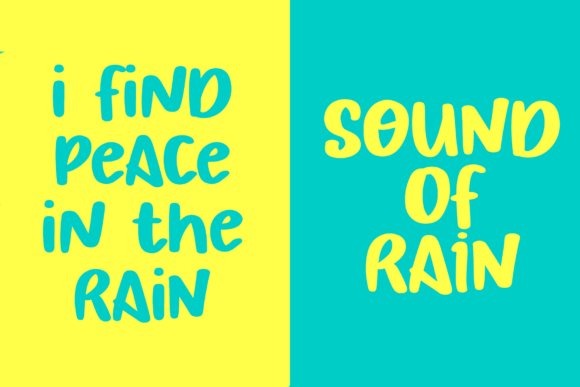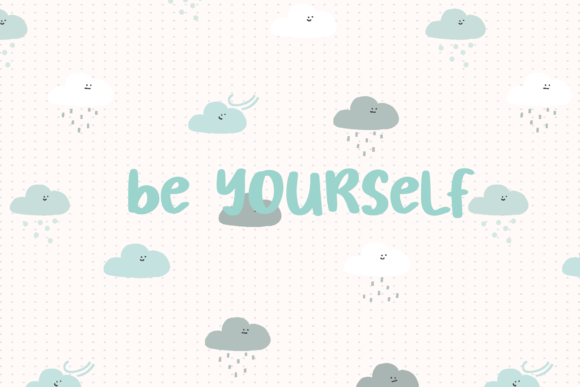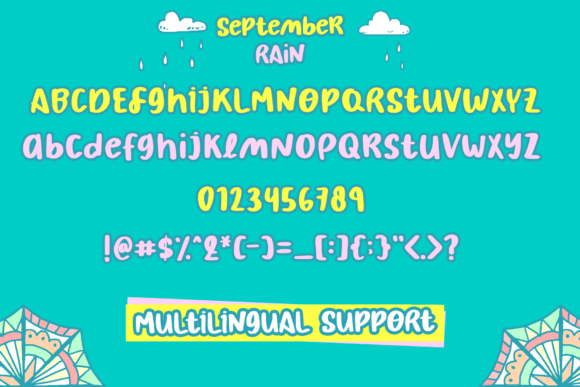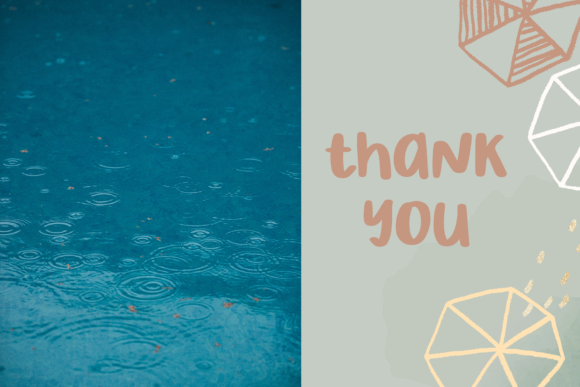
September Rain Font
About September Rain Font
“September Rain” is a whimsical and playful font designed to bring a touch of charm to your seasonal projects, making it perfect for greeting cards, posters, and various crafty endeavors. With this font, the only limit is your imagination, allowing it to bloom and cascade like the gentle rain of September.
This playful font is an ideal choice for crafting warm and inviting seasonal greetings on cards. Its whimsical nature adds a delightful touch, making it well-suited for expressing the joyful and creative spirit of the fall season. Whether you’re sending heartfelt messages or creating invitations, “September Rain” infuses your typography with a sense of playfulness.
In poster design, the font’s playful characteristics make it stand out, capturing attention and evoking a cheerful atmosphere. Whether you’re promoting autumn events, sales, or any creative initiative during the vibrant month of September, “September Rain” lends a whimsical touch that resonates with viewers.
For crafty projects, this font becomes a charming tool to enhance the visual appeal of handmade creations. Whether applied to DIY cards, scrapbooking, or other artistic endeavors, “September Rain” brings a carefree and playful element that complements the creativity of craft projects.
The tagline, “Let it bloom, let it drop like September Rain,” encapsulates the essence of the font, encouraging a free flow of creativity. It invites designers to embrace the playful and unpredictable nature of “September Rain,” letting their ideas flourish and cascade like raindrops, resulting in unique and imaginative designs.
In essence, “September Rain” goes beyond being just a font; it serves as an open invitation to explore the whimsical side of design. Tailored for seasonal projects and crafted with playfulness in mind, this font empowers your creativity to bloom and flow like the gentle rain of September, bringing a joyful touch to all your design endeavors.